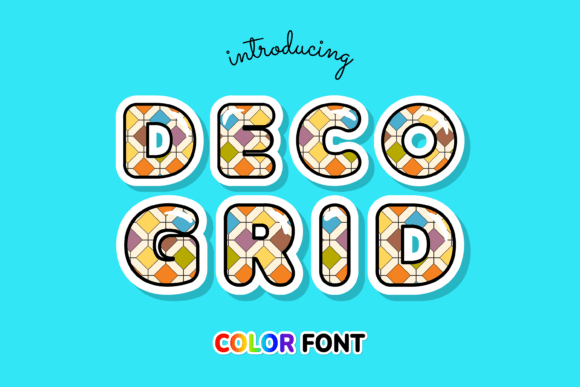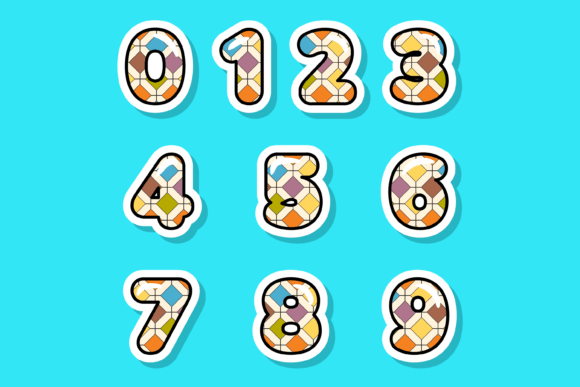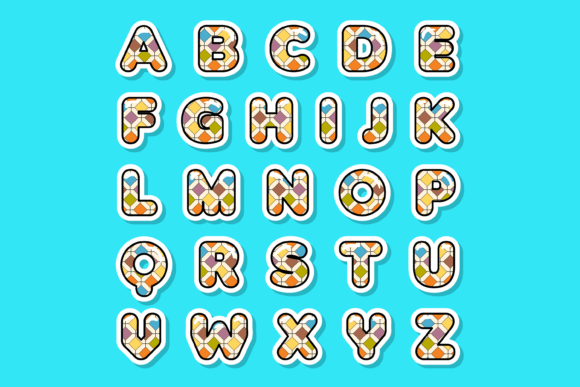
About Deco Grid Font
Absolutely! Deco Grid is an incredibly cool color font that can add a unique and eye-catching element to your creative projects. Whether you’re working on custom designs, engaging in DIY crafts, or simply looking to incorporate a lovely touch into your creations, Deco Grid is an amazing choice.
This font’s distinctive grid-like pattern and vibrant color scheme make it stand out from traditional fonts. Each letter is carefully crafted with geometric shapes and lines, creating a mesmerizing and dynamic visual effect. The combination of colors and the structured grid pattern give Deco Grid a modern and sophisticated look.
Deco Grid is highly versatile and can be used in a variety of design applications. Whether you’re designing logos, posters, packaging, social media graphics, or any other visual content, this font will bring a sense of style and creativity to your projects. Its geometric design and bold colors make it particularly well-suited for modern and minimalist designs.
Customization is made easy with Deco Grid. You can adjust the size, spacing, and color of the font’s grid pattern to suit your specific design needs. Its PUA encoding ensures easy access to all the amazing glyphs and ligatures, allowing you to experiment and create unique compositions.
The cool and contemporary aesthetic of Deco Grid makes it an excellent choice for adding visual interest and impact to your designs. Whether you’re going for a sleek and futuristic look or a retro-inspired style, this font can adapt to your creative vision. Its color palette and intricate grid pattern make every letter a statement piece, adding a touch of sophistication to your creations.
Choose Deco Grid to infuse your designs with a cool and captivating element. Let its unique color font style and structured grid design transform your projects into visually stunning works of art. With this incredible font, your creations will grab attention and make a lasting impression.
Embrace the versatility and creativity of Deco Grid, and let it be your go-to choice for any design project that requires a lovely touch and a distinctive visual impact. Whether you’re working on personal projects or professional branding, this font will add a touch of coolness and uniqueness to your work.